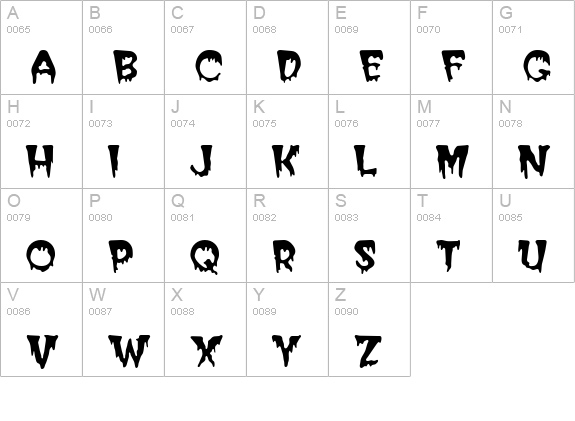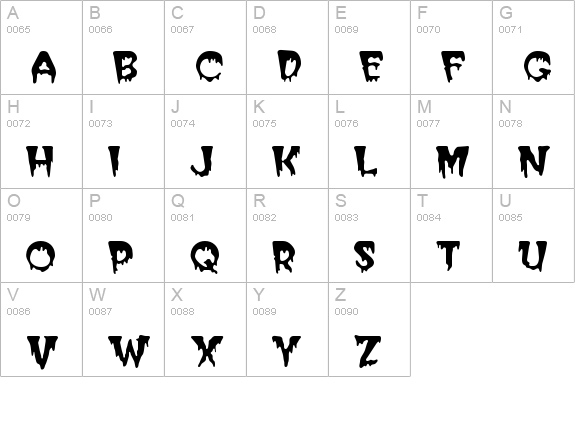
Creepy Normal Font Details
Creepy Normal is the standard, neutral variant in the Creepy typeface family \xE2\x80\x94 well suited to general body text, paragraphs, and standard typographic work.
Introducing Creepy Normal font, a chilling yet intriguing typeface that will send shivers down your spine. This font strikes the perfect balance between creepy and normal, making it perfect for adding an eerie touch to your designs. With its twisted letterforms and haunting aesthetic, Creepy Normal font is sure to grab attention and leave a lasting impression. But don't let its sinister vibes scare you away - this font is also versatile enough to be used in a variety of projects, from Halloween posters to horror movie titles. Whether you're looking to add a touch of the macabre to your designs or simply want to stand out from the crowd, Creepy Normal font is the perfect choice. Best of all, Creepy Normal font is available for free download at FontsMarket.com. So go ahead and unleash your dark side with this spooky yet stylish typeface. Get ready to give your designs a creepy twist with Creepy Normal font!